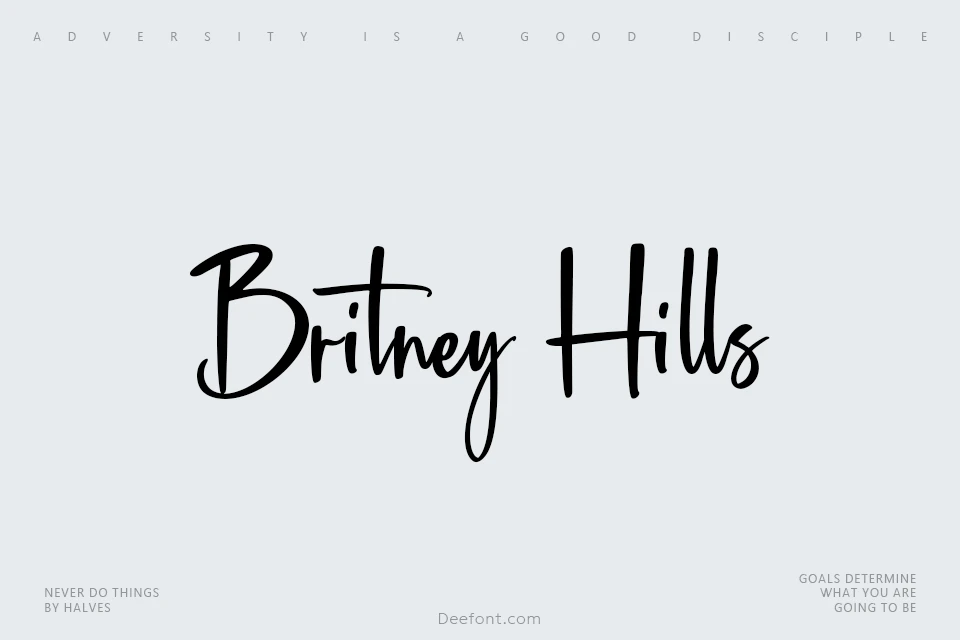
Britney Hills Font
Britney Hills Font is an elegant script font that captures authentic handwritten charm with its flowing, natural strokes. Designed by Alpaprana Studio, this versatile typeface brings a sophisticated yet personal touch to any creative project. With its graceful curves and smooth connections, Britney Hills is perfect for branding, logo design, wedding invitations, packaging, and social media graphics. The font features complete uppercase and lowercase characters, numerals, punctuation, and multilingual support, making it adaptable for global use. Available in OTF, TTF, and WOFF formats, it’s compatible with most design software and cutting machines. Elevate your designs with Britney Hills’ timeless elegance and expressive character!